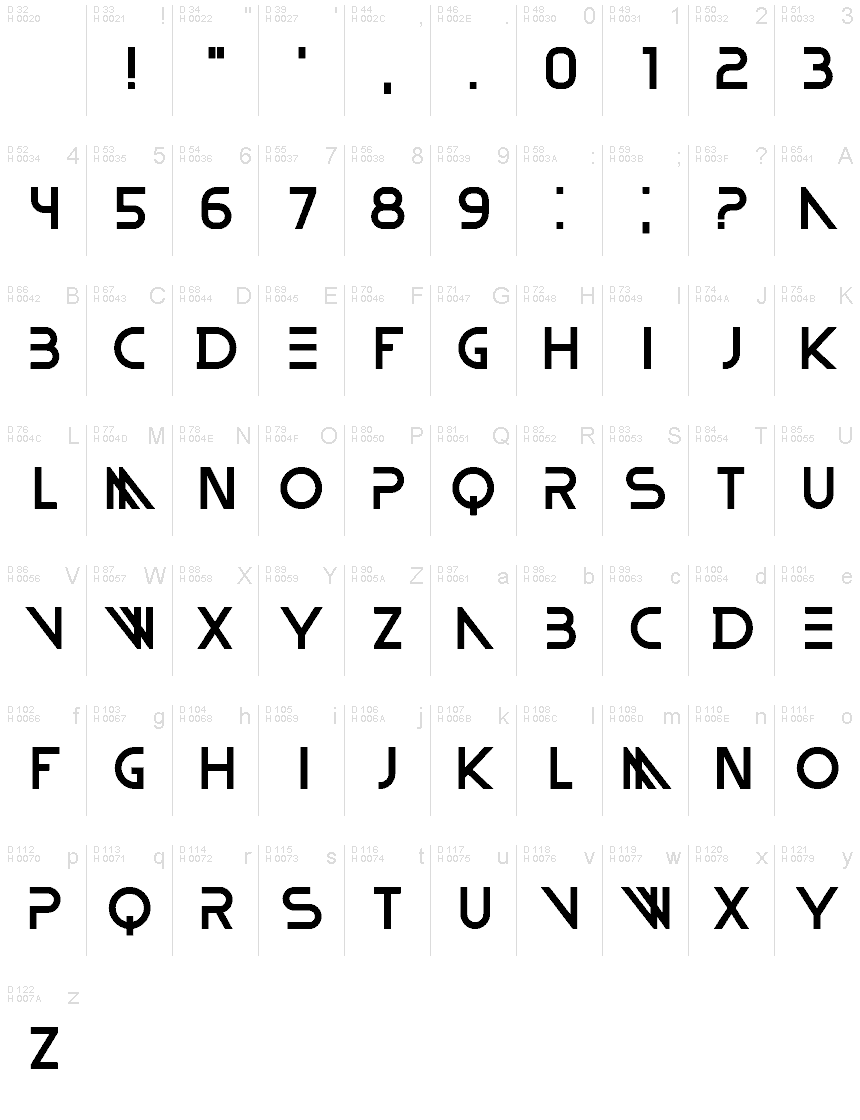
Entirely, a display font with a techno style, is a modern addition created by Vladimir Nikolic and offered for free. Its characters stand out against a variety of backgrounds, making them great to be used in large sizes and loud visuals. Use them on posters, magazine and online title pages, and other advertising items. Set them on dark backgrounds with neon outlines to stand out even more.
The futuristic design of Entirely offers a retro sci-fi vibe, which can be incorporated into video and mobile game titles and covers, movie posters and artwork, and sci-fi themed projects. Use them for apparel items, mugs, posters etc. And when you need an imposing font for social media updates that’ll stop people on their scroll, add them to your projects or combine them with others.